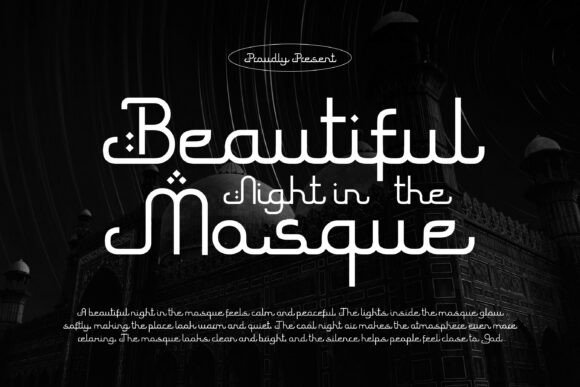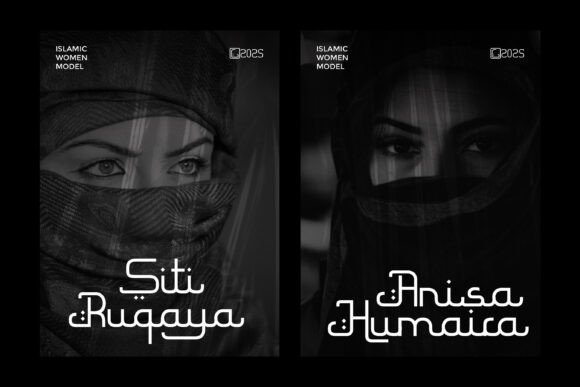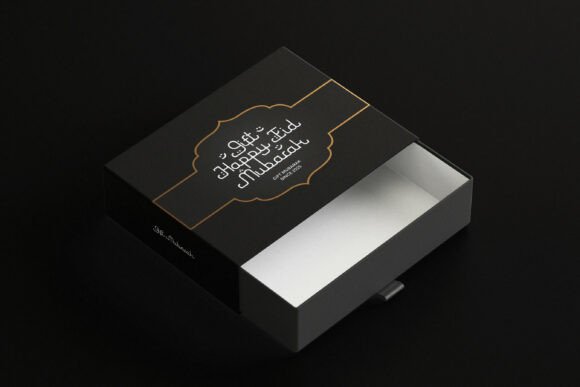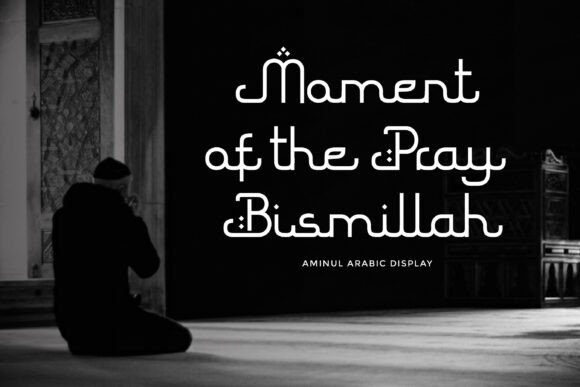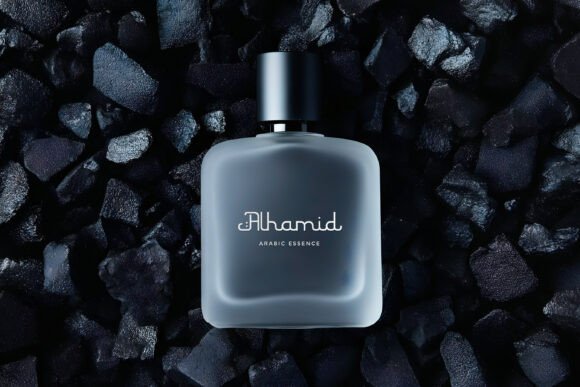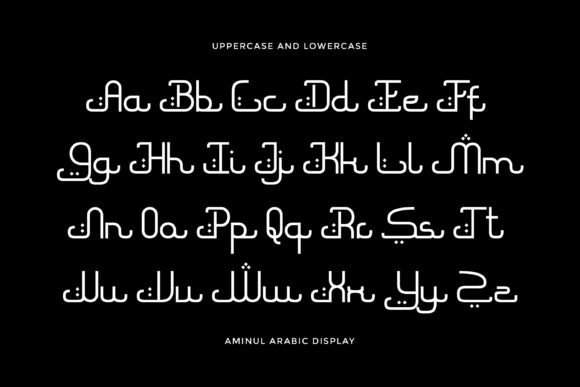
Aminul Font: A Modern Arabic Display Typeface
In the realm of typography, the art of crafting a font that seamlessly blends traditional character forms with modern design sensibilities is a challenging yet rewarding endeavor. Aminul, a contemporary Arabic display typeface, rises to this challenge by merging the elegance of traditional Arabic script with the sleekness of modern design. This exquisite typeface is not only a visual treat but also a versatile tool for designers and crafters looking to imbue their projects with a sense of sophistication and cultural richness.
The Essence of Aminul Font
Aminul is characterized by its smooth curves, balanced proportions, and refined structure. These design elements work in harmony to create a typeface that exudes a calm yet expressive visual presence. The smooth curves lend a touch of softness and approachability, while the balanced proportions ensure that each character stands with dignity and strength. The refined structure of Aminul adds a layer of sophistication, making it an ideal choice for projects that demand elegance and poise.
Blending Tradition with Modernity
One of the standout features of Aminul is its ability to blend traditional Arabic character forms with contemporary design aesthetics. This blend is not merely superficial; it is deeply rooted in the understanding of Arabic script’s historical and cultural significance. Aminul respects the traditional nuances of Arabic typography while infusing it with a modern sensibility that appeals to today’s design sensibilities. The result is a typeface that feels both timeless and current, capable of resonating with a wide audience.
Suitability for Meaningful and Elegant Typography
Aminul’s design makes it particularly suited for projects that require meaningful and elegant typography. Whether it’s for branding, advertising, editorial design, or digital interfaces, Aminul brings a level of sophistication and grace that elevates the content it represents. Its calm and expressive visual presence makes it an excellent choice for conveying messages that require a touch of elegance and refinement. Designers and crafters can rely on Aminul to add depth and character to their work, making it more engaging and impactful.
Versatility and Application
The versatility of Aminul is one of its most compelling attributes. This typeface is not limited to a specific use case but can be applied across various design projects. For branding, Aminul can help create a memorable and luxurious brand identity. In editorial design, it can add a touch of elegance to magazines, newspapers, and books. For digital products, Aminul can enhance the user interface, making it more aesthetically pleasing and user-friendly. Its potential applications are vast, limited only by the imagination of designers and crafters.
Aminul font represents a significant achievement in typographic design, offering a modern Arabic display typeface that is both elegant and expressive. Its blend of traditional Arabic character forms with contemporary design elements makes it a unique and valuable tool for designers and crafters. With its smooth curves, balanced proportions, and refined structure, Aminul delivers a visual presence that is both calm and engaging. For those seeking to create meaningful and elegant typography, Aminul stands as an exceptional choice, ready to elevate and enhance a wide range of design projects.
In conclusion, Aminul font is a remarkable addition to the world of typography, offering a perfect blend of modernity and tradition. Its design and versatility make it an invaluable resource for anyone looking to create elegant and meaningful typography. As designers and crafters continue to explore and push the boundaries of typographic expression, fonts like Aminul play a crucial role in shaping the visual language of our time.